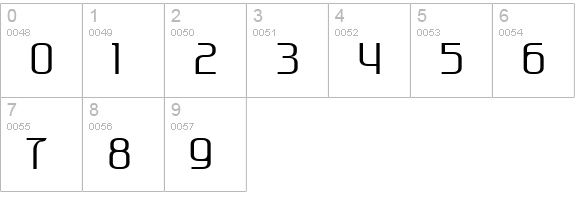
Gputeks Regular Font Details
Gputeks Regular is the standard, neutral variant in the Gputeks typeface family \xE2\x80\x94 well suited to general body text, paragraphs, and standard typographic work.
Gputeks Regular is a versatile and contemporary font that exudes elegance and sophistication. With its clean lines and balanced proportions, this font is perfect for a wide range of design projects, from branding and logos to headlines and body text. One of the standout features of Gputeks Regular is its legibility, making it easily readable across various mediums and sizes. Whether it's used for print or digital purposes, this font ensures that your message is clear and easily understood by your audience. Another great advantage of Gputeks Regular is that it is absolutely free! That's right, you can download this fantastic font at FontsMarket.com without spending a single penny. This makes it an ideal choice for designers and creatives who are working on a tight budget or simply want to add a high-quality font to their collection without any cost. Gputeks Regular offers an extensive character set, including uppercase and lowercase letters, numerals, punctuation marks, and special glyphs. This allows you to unleash your creativity and create unique and eye-catching designs that stand out from the crowd. Whether you're designing a sleek and modern website, a stylish magazine layout, or a professional-looking business card, Gputeks Regular is the perfect choice. Its versatility, legibility, and free availability make it a must-have font for any designer or creative professional. So why wait? Head over to FontsMarket.com and download Gputeks Regular today. Start creating stunning designs that leave a lasting impression, all while enjoying the convenience and affordability of a free font.